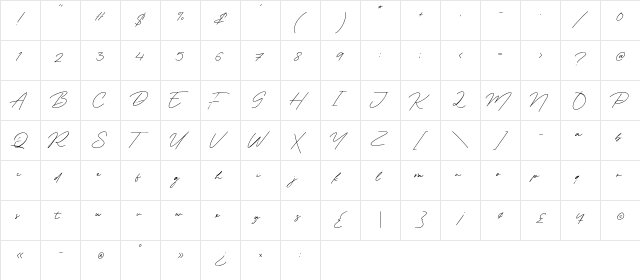
Kimberley Waterfall Regular
| Designer | Balpirick Studio |
Design Context for Kimberley Waterfall Typeface
Kimberley Waterfall is a composed and adaptable typeface that performs quietly and consistently across a wide range of design contexts.